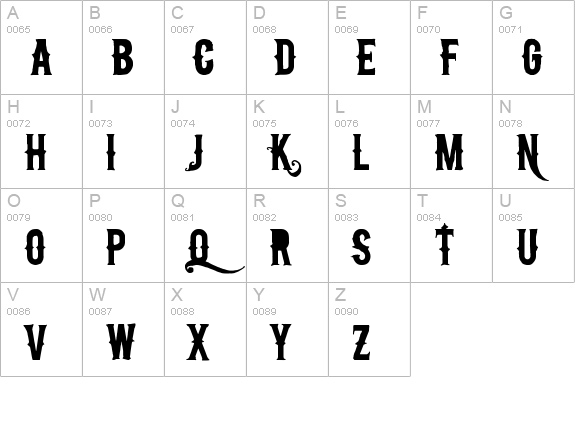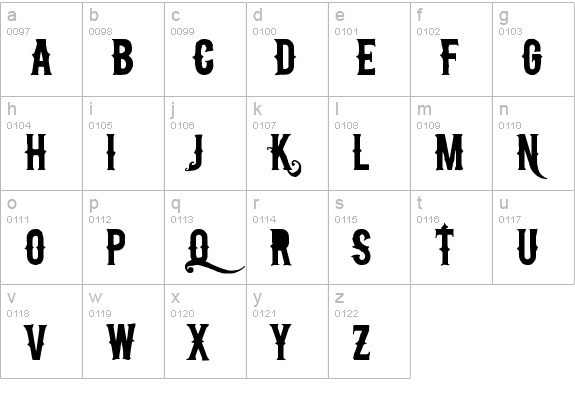
nu Font Details
Introducing Nu font, a versatile and modern typeface that will elevate your design projects to new heights. With its sleek lines and contemporary feel, Nu font is perfect for branding, editorial design, and more. This font offers a wide range of weights and styles, making it suitable for various design applications. The best part about Nu font? It's completely free to download! You can easily access this stylish typeface at FontsMarket.com, where you can enhance your creative projects without breaking the bank. Don't miss out on the opportunity to add Nu font to your font collection today and unleash your creativity with this stunning typeface.